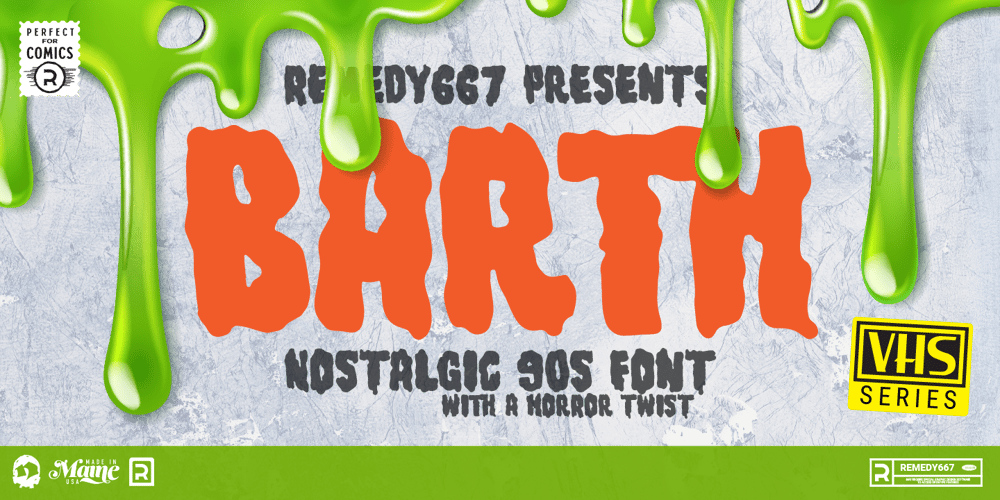
Barth Font Family was designed by Nick Polifroni and published by Remedy667. Barth contains 1 styles and family package options. If you’re in need of some serious typography, stop scrolling. Barth. Yoooou heard that right. Designed with a love for horror movies and 90s Nickelodeon nostalgia, Barth is the best font. Get serious about your design work, get Barth. It’s burgery.Looking for a horror font that is as fun and nostalgic as it is eye-catching? Barth. Yoooou heard that right. This retro font is sure to get your viewers hooked on your work with its bold style and innocent yet spooky lettering. It’s perfect for posters, books, movies, even restaurant signage and beyond.Features Doubles Elimination gives you a more natural look. Stands out and get noticed…. be heard. Includes a Remedy667 Font Catalog PDF, all your favorite fonts in one handy catalog. Additional InformationSome fonts may require special graphic design software to access OpenType features. Examples of these programs are Adobe Illustrator, Adobe Photoshop, Adobe Indesign, and Corel Draw. Feedback is always welcome. If there is anything missing from our typefaces that you would like to see, or if there are any issues that occur when using them. Please don’t hesitate to contact us or email me at nick@remedy667.com and let us know.